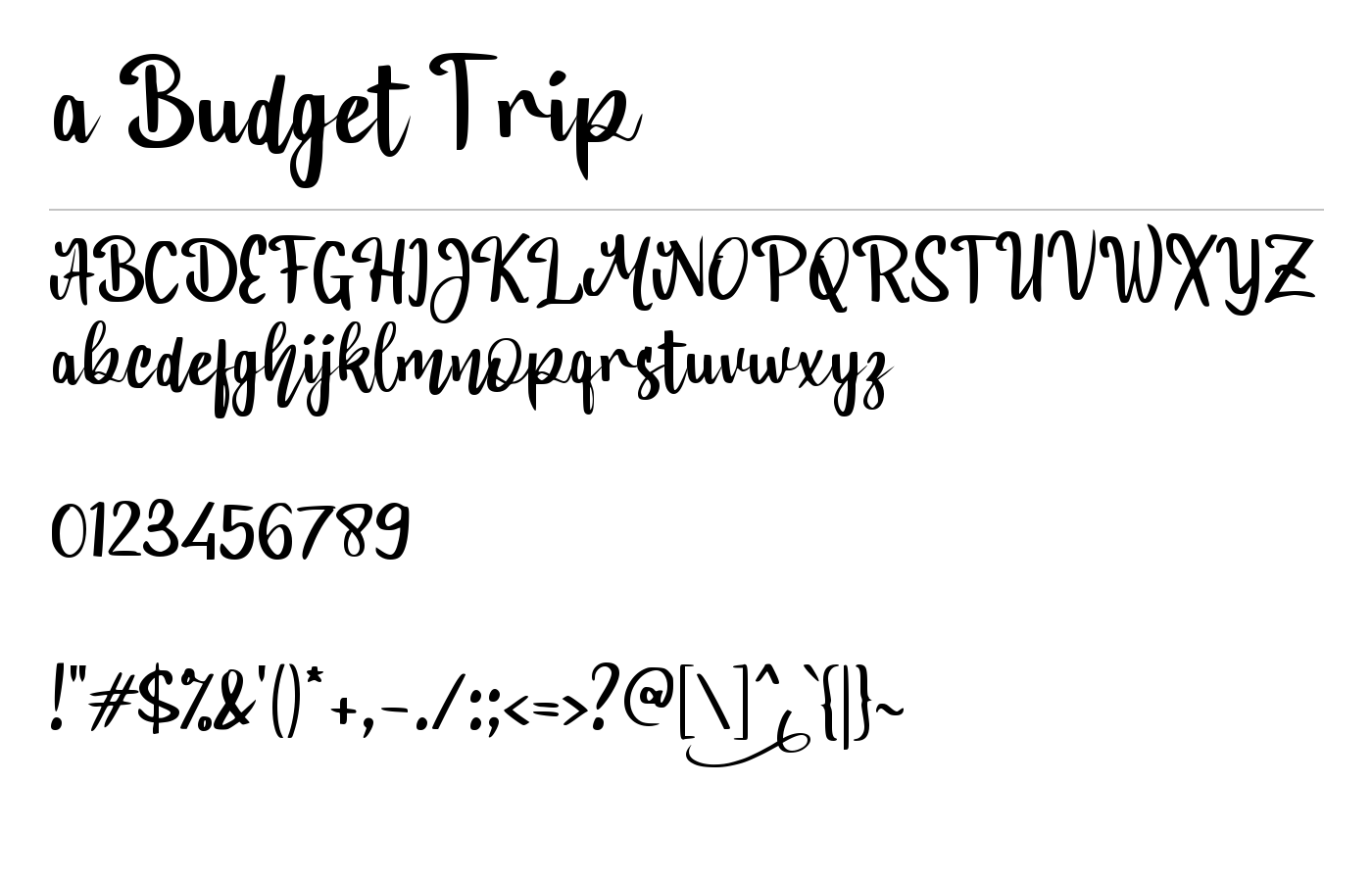
a Budget Trip is a lively script font with a casual, handwritten feel that combines playful curves and slightly irregular strokes. Its moderately high x-height and flowing letterforms create a friendly, approachable style perfect for creative projects, branding, and invitations that seek warmth and personality. This font works well for designs that want to communicate a personal, informal tone with charm and energy.
a Budget Trip Font